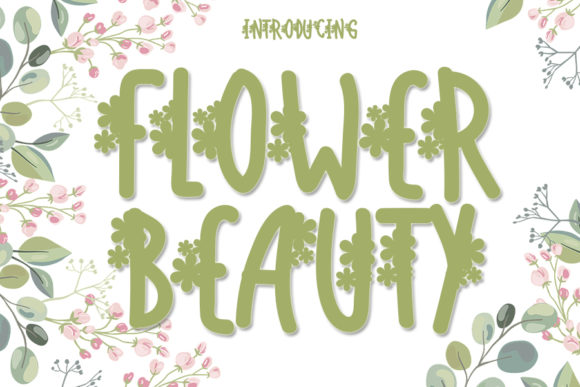
Unleash your creativity with Flower Beauty Font, the ultimate display font designed to transport you to a world of enchantment and delight. Its whimsical and playful spirit will add a touch of magic to your designs, making them bloom with joy and charm.
Step into a world where imagination reigns supreme, where every word carries the essence of happiness and wonder. With Flower Beauty Font, you'll unlock a universe of endless possibilities, where your designs will blossom into masterpieces that capture hearts and captivate minds.
Picture your words dancing across the page, adorned with the delicate petals of Flower Beauty. Its unique and captivating design will make your projects shine with an irresistible charm, attracting attention and leaving a lasting impression.
From eye-catching posters and vibrant invitations to enchanting logos and whimsical branding, Flower Beauty Font will transform your designs into works of art. Its versatility and elegance make it the perfect choice for a wide range of projects, ensuring that your creations stand out from the crowd.
Embrace the beauty of Flower Beauty Font and watch your designs flourish with its vibrant energy. Let your creativity soar and experience the joy of creating projects that resonate with your audience, leaving them spellbound and inspired.
crafted by the talented Eddygoodboy, this font is a true labor of love, infused with the passion and dedication of a master artist. With each stroke and curve, Eddygoodboy has meticulously brought to life a font that embodies the essence of happiness and playfulness.